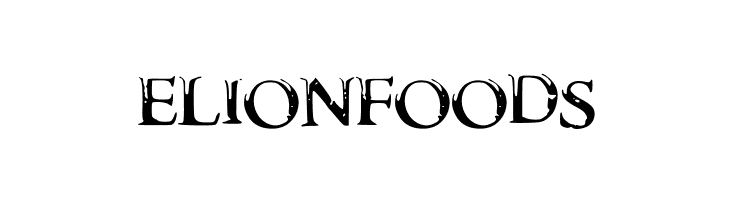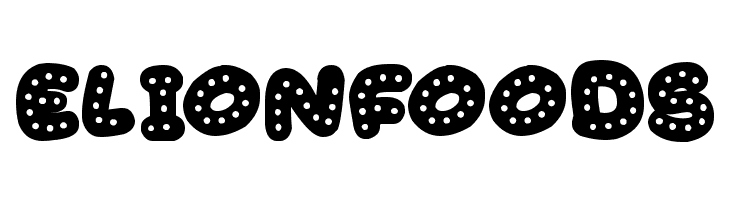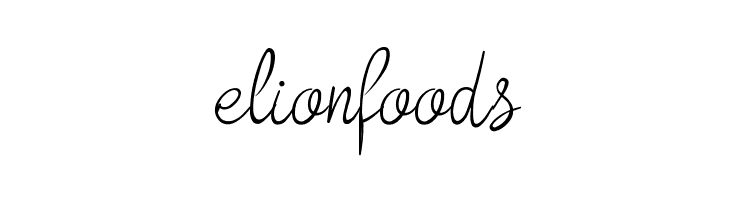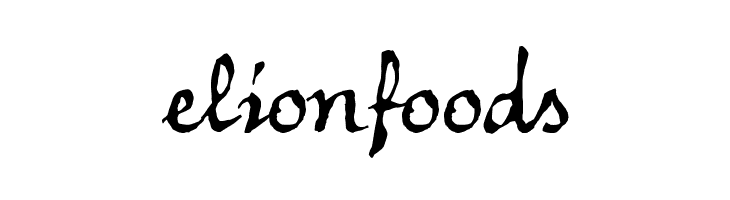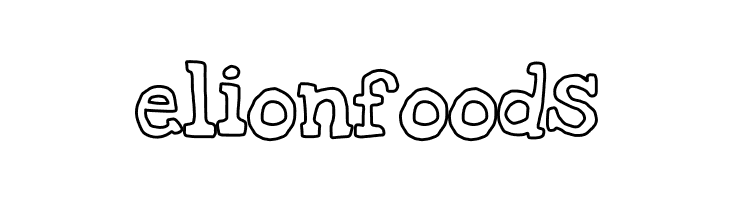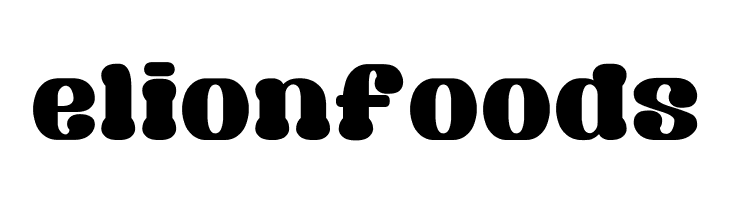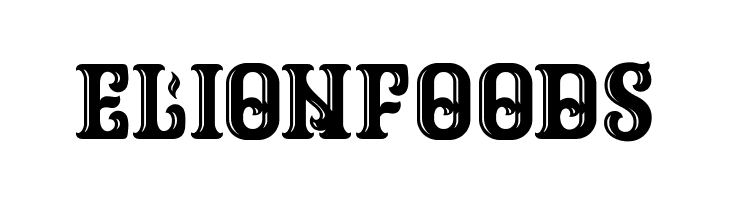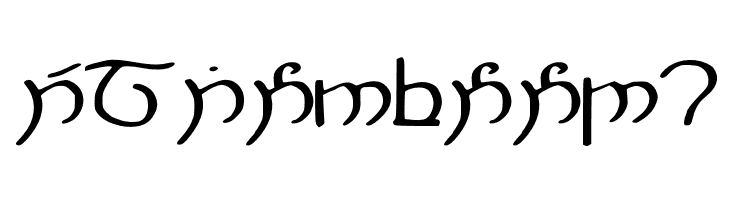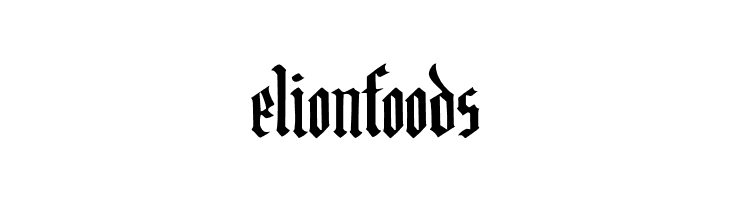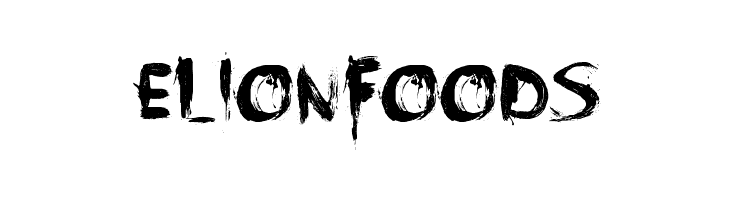
A rugged, medieval-inspired font with a distressed, aged appearance.
A playful, cookie-inspired font with bold, rounded characters and decorative cutouts.
An elegant, flowing script font with a natural handwritten style.
A hand-drawn, medieval-inspired font with dynamic strokes and organic shapes.
A playful, hand-drawn font with a cartoonish, nostalgic style.
A bold, retro font with a playful, bubbly design.
A bold, decorative font with vintage cut-out details.
A decorative, fantasy-inspired font with intricate, flowing characters.
A classic Blackletter font with intricate, Gothic-inspired design.
A bold, distressed font with a horror-inspired, brush-stroke appearance.